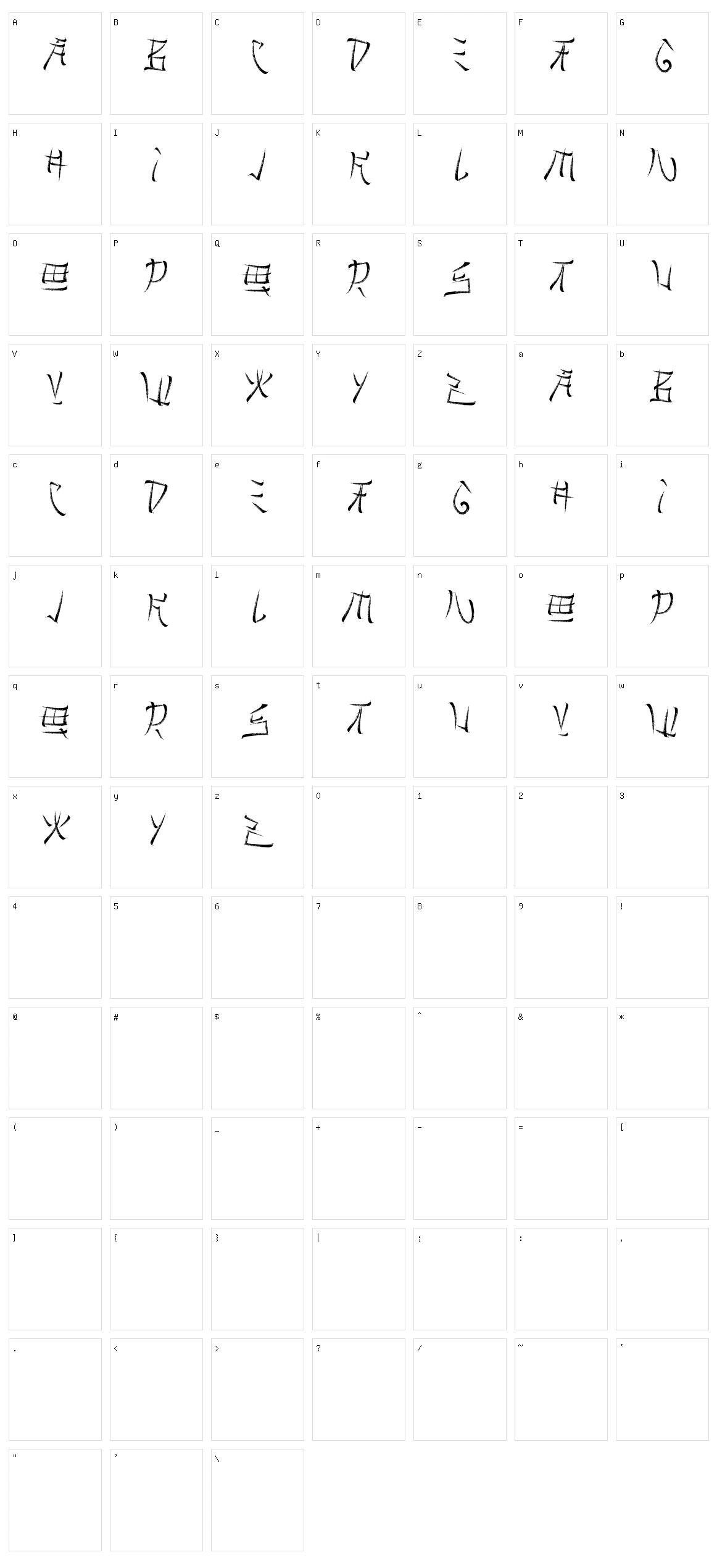
ÿþB R U S H I D O i s a n e x p e r i m e n t o n m a k i n g a f o n t l o o k l i k e j a p a n e s e l e t t e r i n g w i t h b r u s h . I t c o n t a i n s o n l y l e t t e r s A - Z .